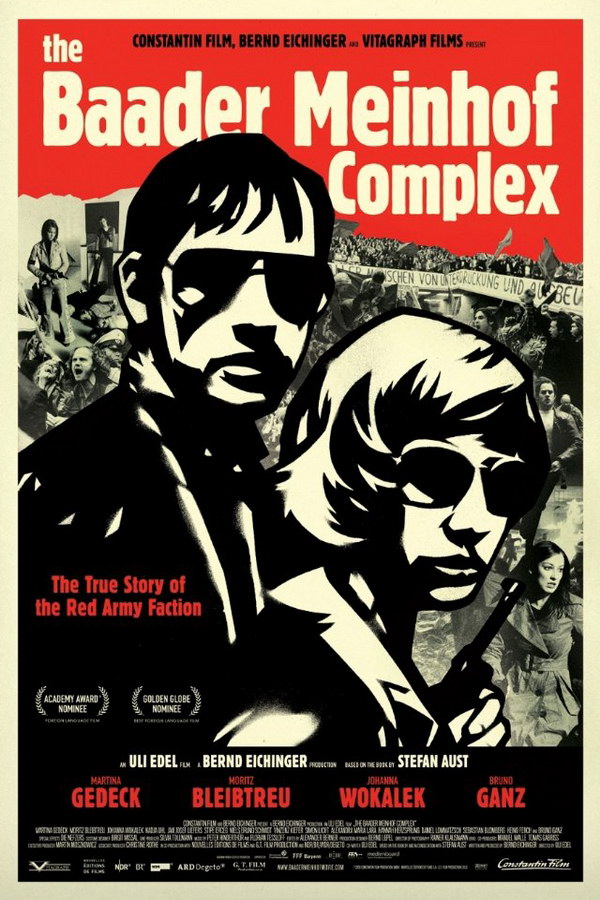
The Baader Meinhof Complex Font
BiographyThe Baader Meinhof Complex is a 2008 German film directed by Uli Edel. It is based on the true story of the German militant group known as the Red Army Faction (RAF), which was active in the 1970s and 1980s. The film follows the story of the group's founders, Andreas Baader, Ulrike Meinhof, and Gudrun Ensslin, as they become radicalized and begin a campaign of violence against the West German government.
Block BQ Extra Cond, a typeface created by Hermann Hoffmann in 1908, is most likely the font used for The Baader Meinhof Complex title. Block typeface is distinguished by its recognizable bold characters and extremely short descenders. You can view more details about the font here.